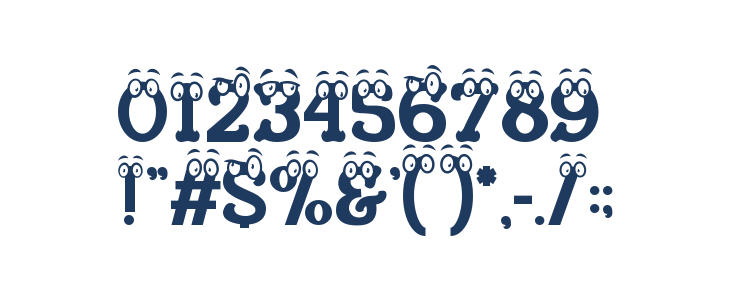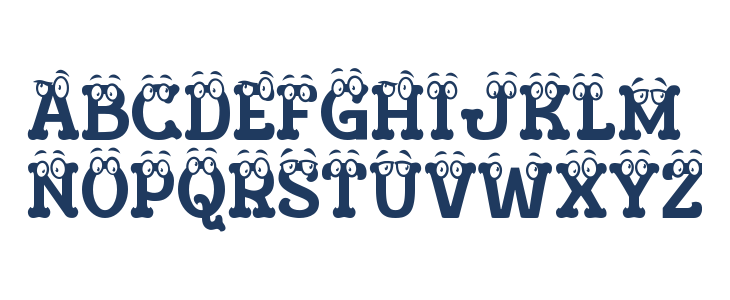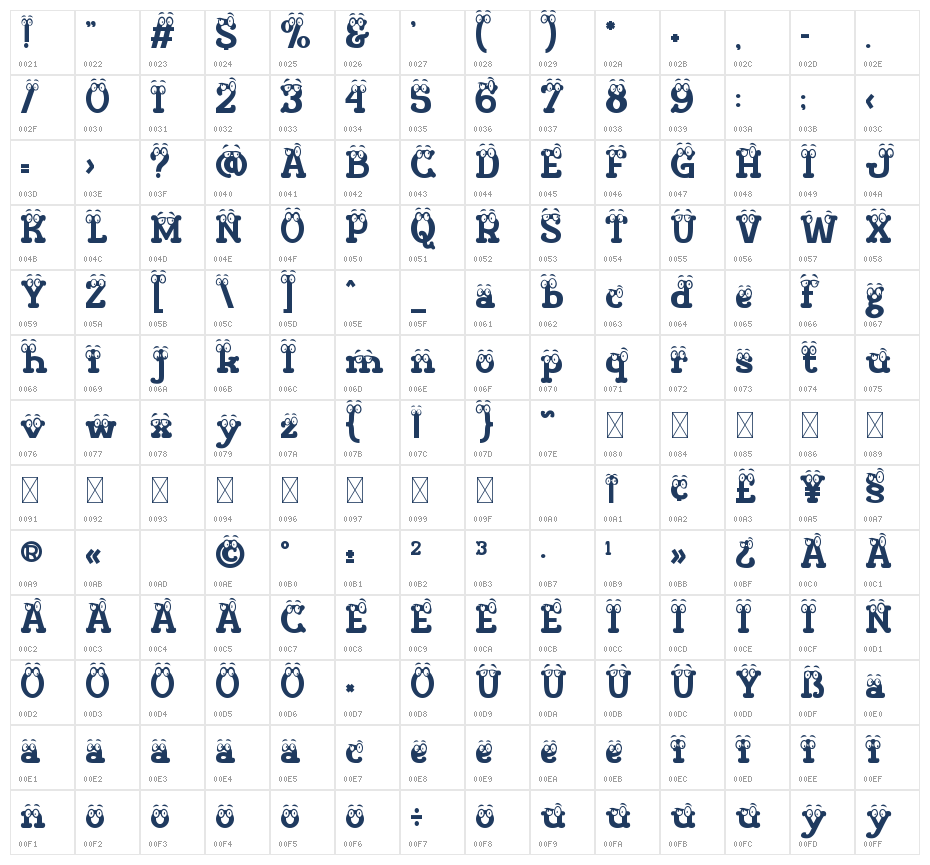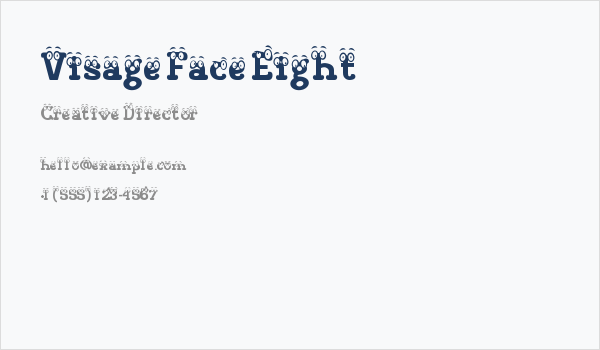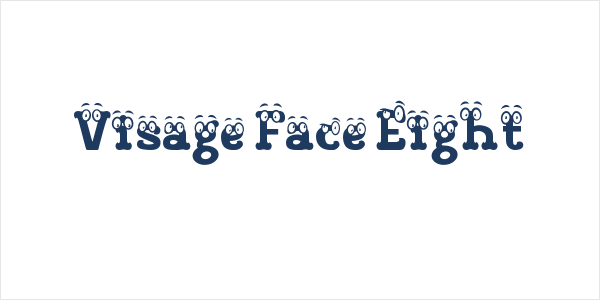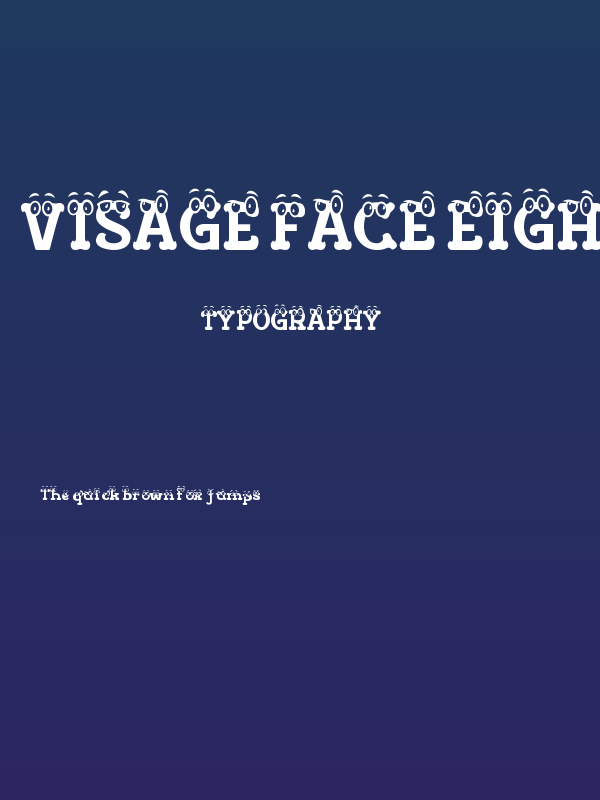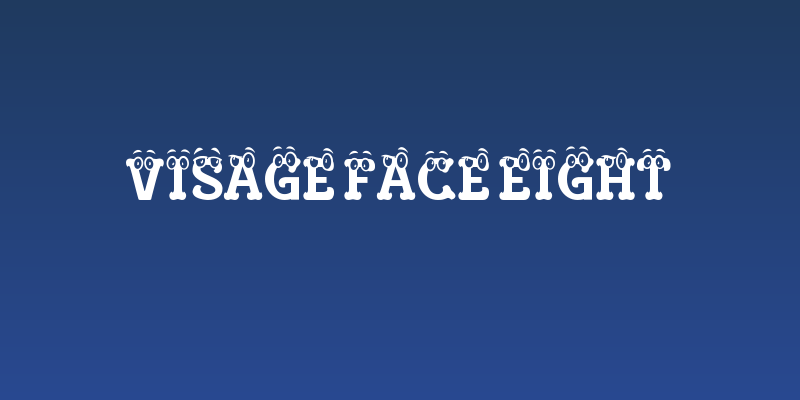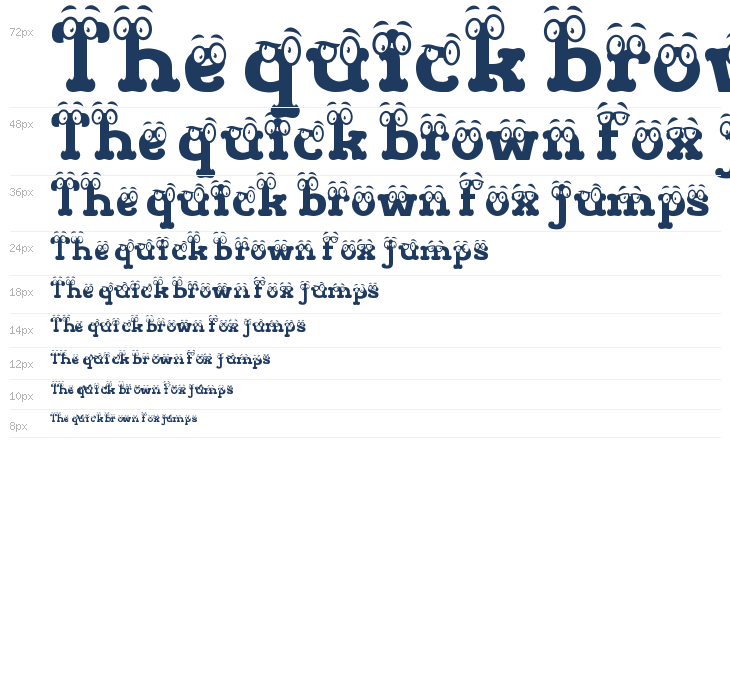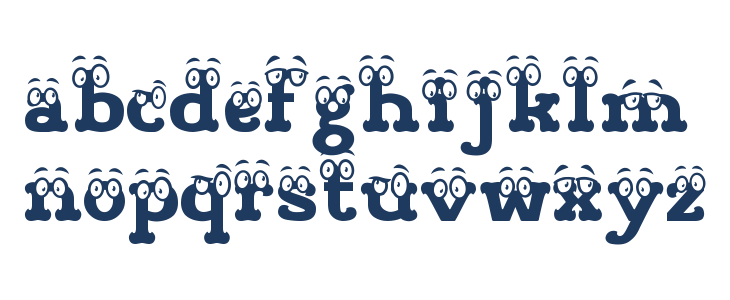
Visage Face Eight Font
Visage Face Eight Description
A playful, cartoonish font with expressive, googly eyes on each character, giving it a whimsical and fun appearance.
| Overall Style | Whimsical, Playful, Cartoonish |
| Use Case | Headlines, Children's content, Logos, Posters |